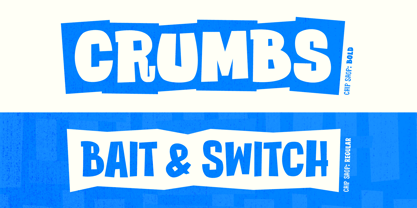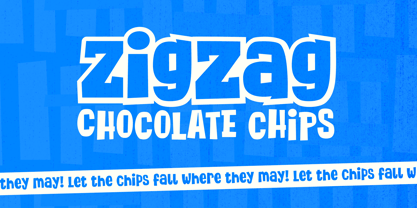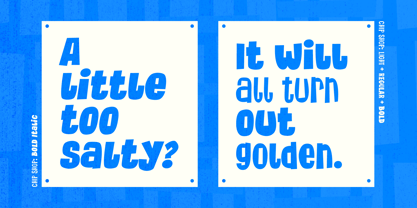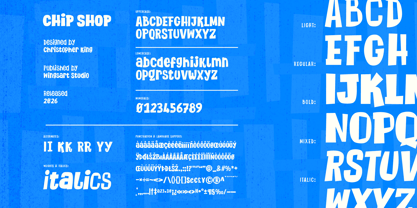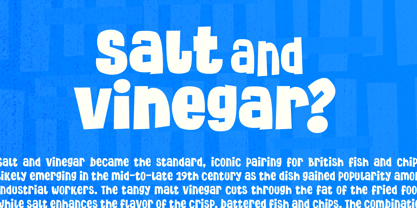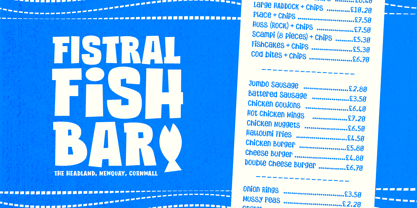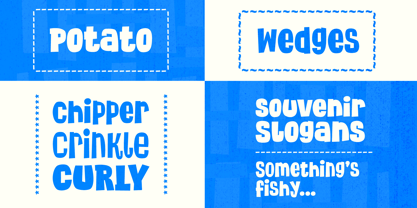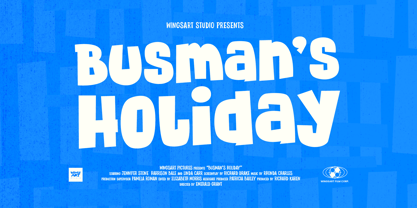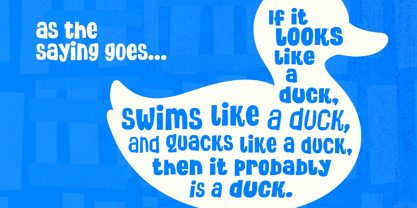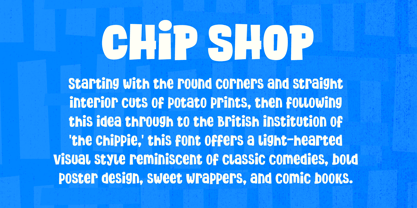
Chip Shop
The Chip Shop Font Family was designed by Christopher King and published by Wing's Art Studio. Chip Shop contains 8 styles and family package options. More about this family
Chip Shop - A Straight Cut Poster Font Chip Shop is a display font using simplified shapes to project a wry sense of humour inspired by British comedy. Starting with the round corners and straight interior cuts of potato prints, then following this idea through to the British institution of 'the Chippie,' this font offers a light-hearted visual style reminiscent of classic comedies, bold poster design, sweet wrappers, and comic books. Offering light, regular, and bold weights, plus a mixed weight stylistic alternative, Chip Shop is a versatile family that works comfortably across a range of display sizes, with a legible underlying framework that is particularly suited to titles, headers, and sub-headers. The family includes a complete uppercase and lowercase alphabet, numerals, punctuation, symbols, and multilingual support. All weights also come with complete italic versions. Chip Shop is a great choice when you're looking for something bold and expressive, with an intrinsic humour.
Christopher King (aka Wingsart Studio) is a Graphic Designer specialising in hand-drawn lettering for film and television titles. From blockbuster films to indie press, Wingsart Studio fonts have appeared on screens big and small around the globe. His work has been used by companies including Disney, Marvel, Apple, Netflix and Paramount Studios.The Wingsart Studio philosophy is to embrace the imperfections inherent with real pens, pencils, paper and brush. In counter-balance to an AI driven age, these fonts remain refreshingly analogue and proud of their human touch. Before a single letter turns into a digital product, countless hours are spent researching and sketching out ideas in pursuit of those perfect lines and shapes.